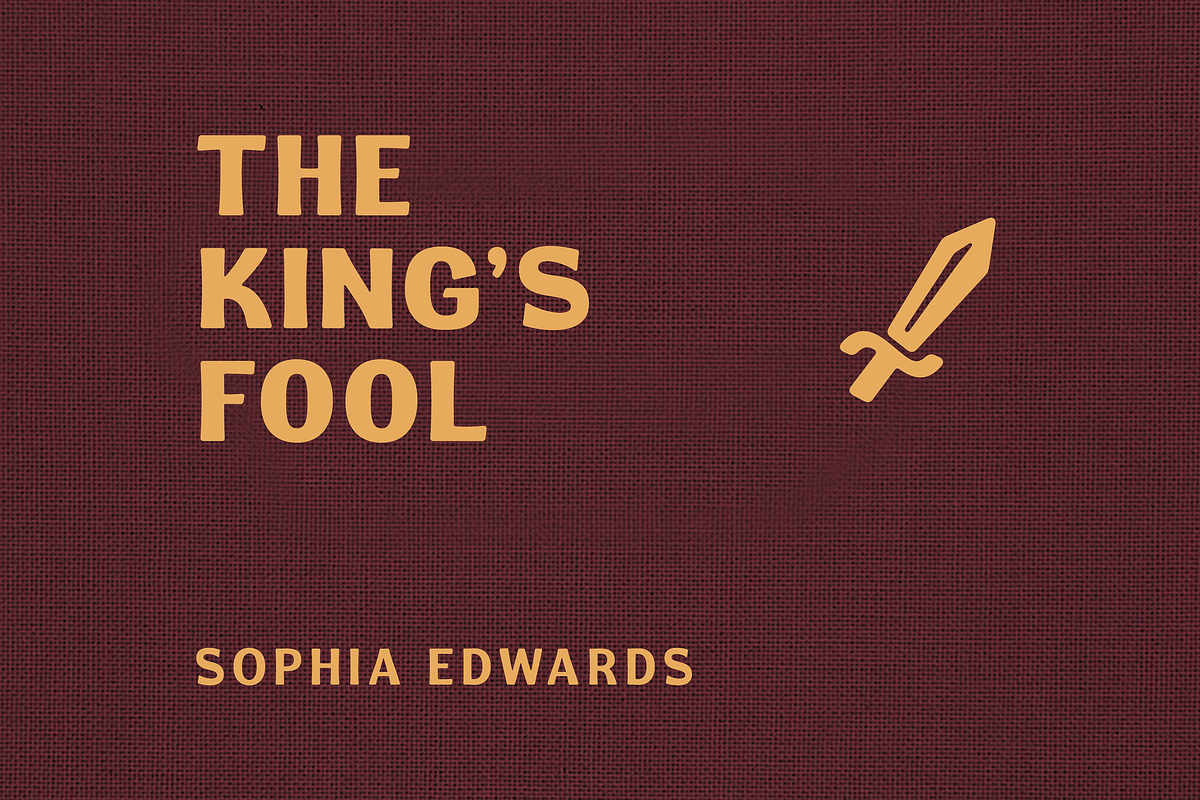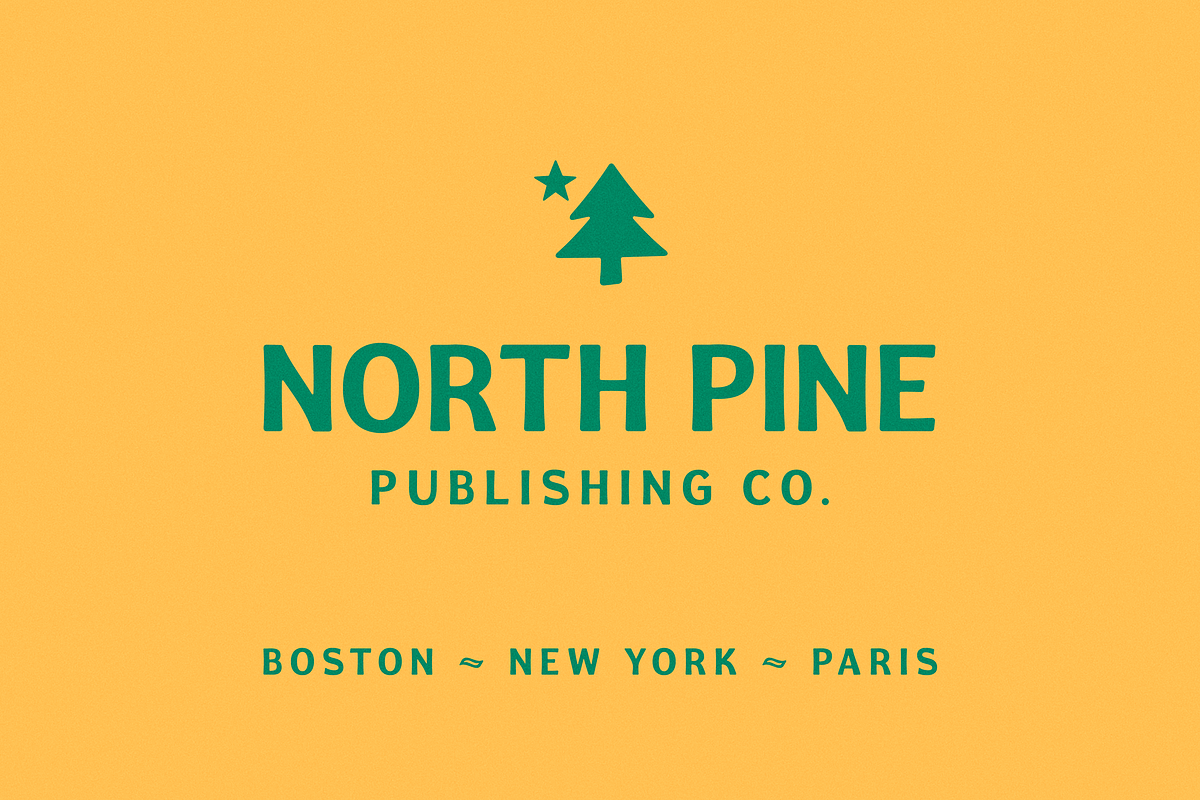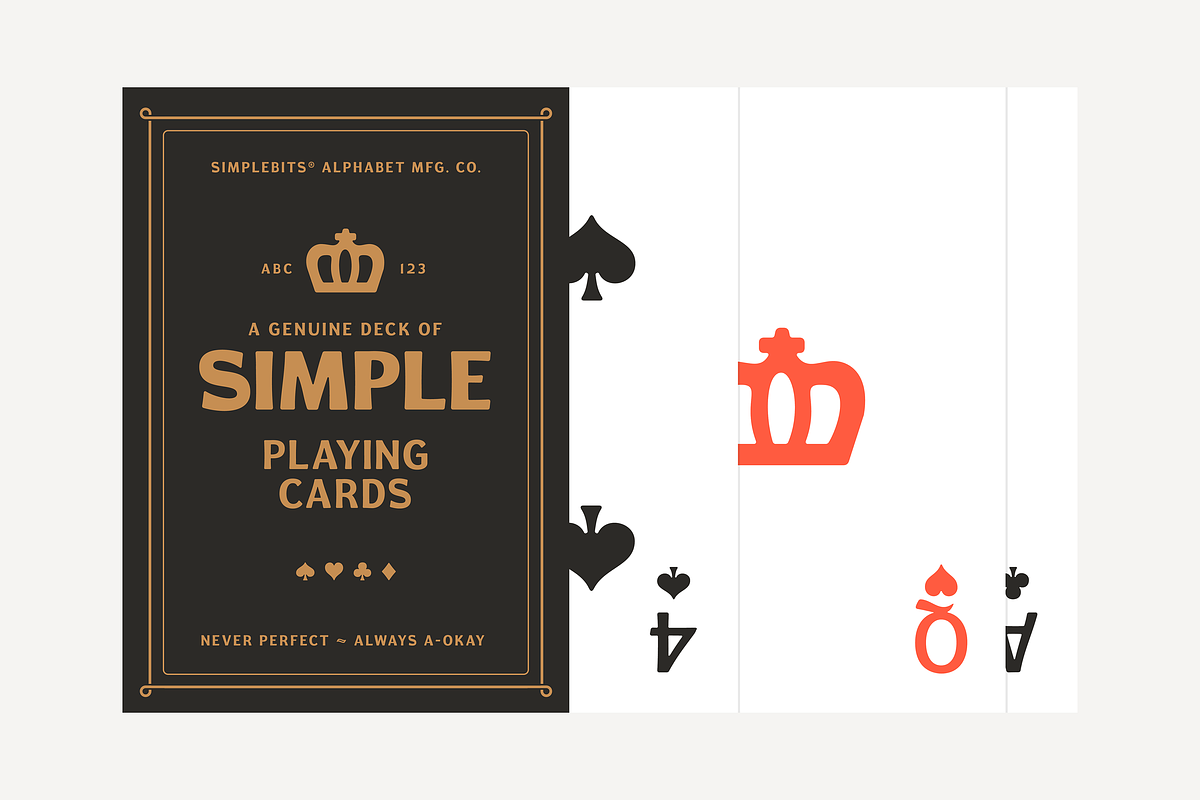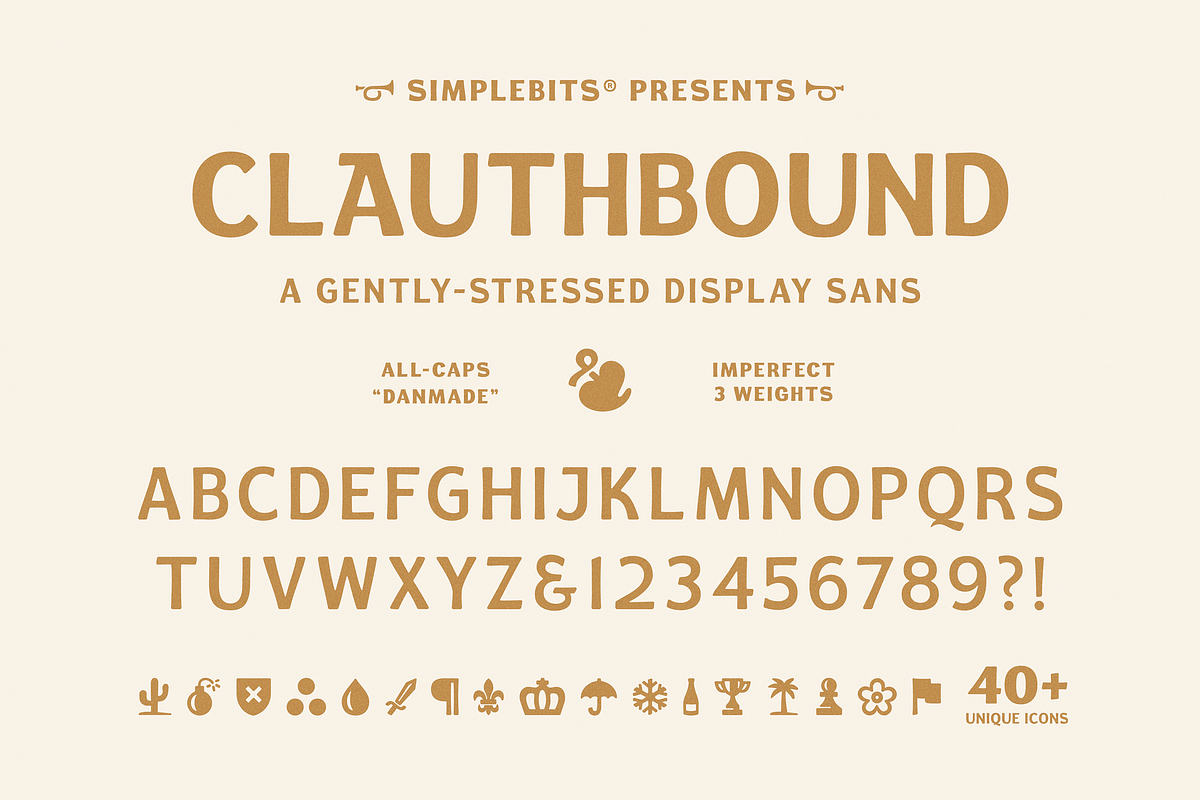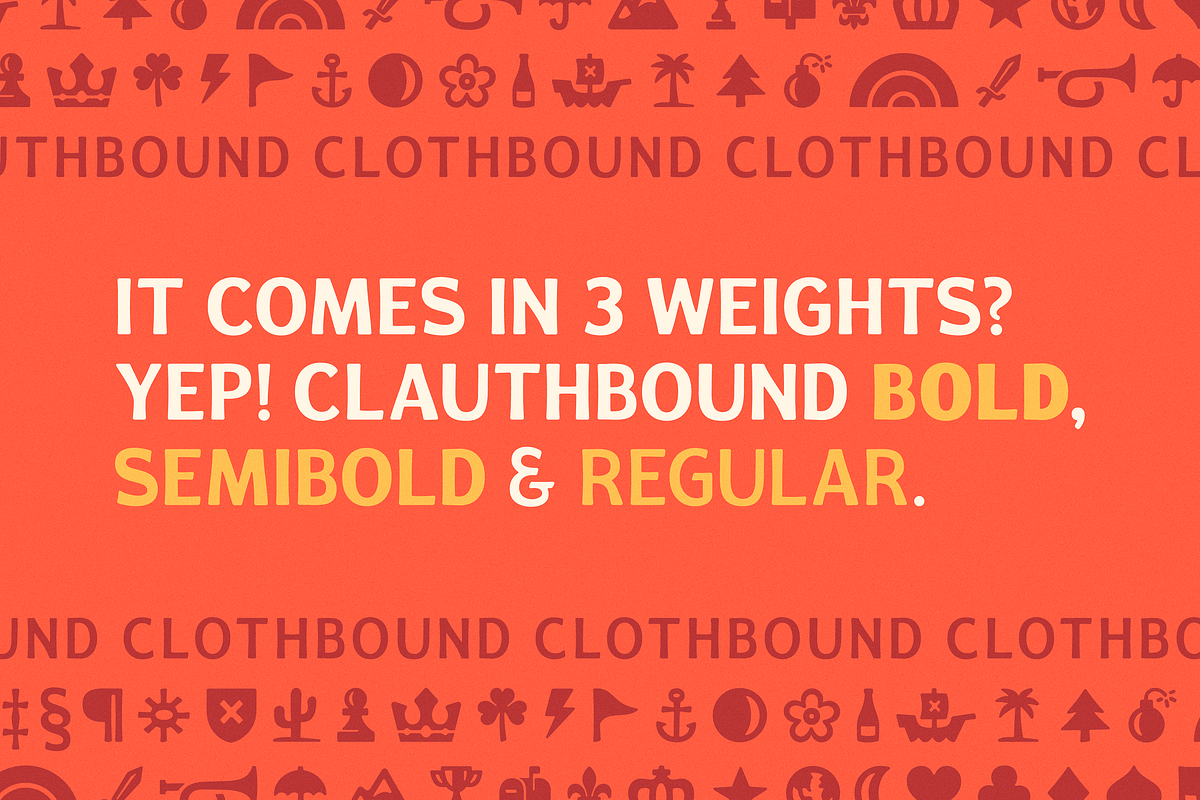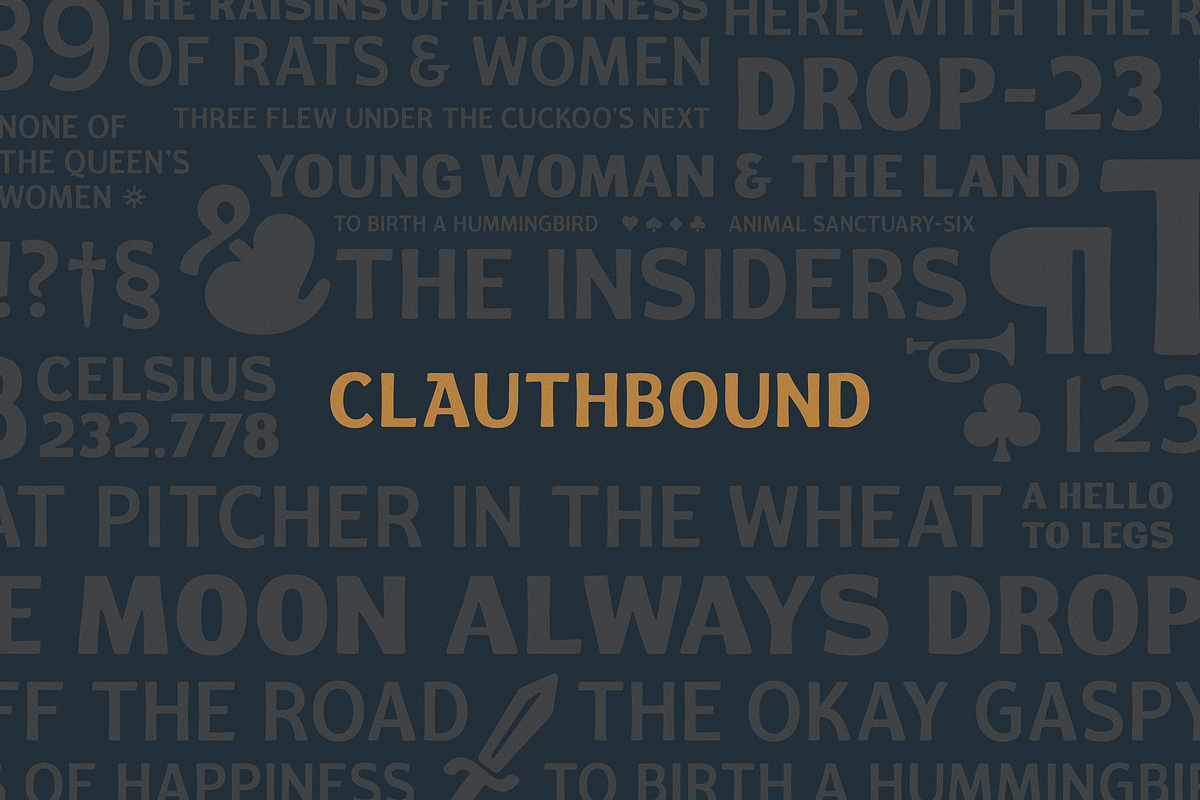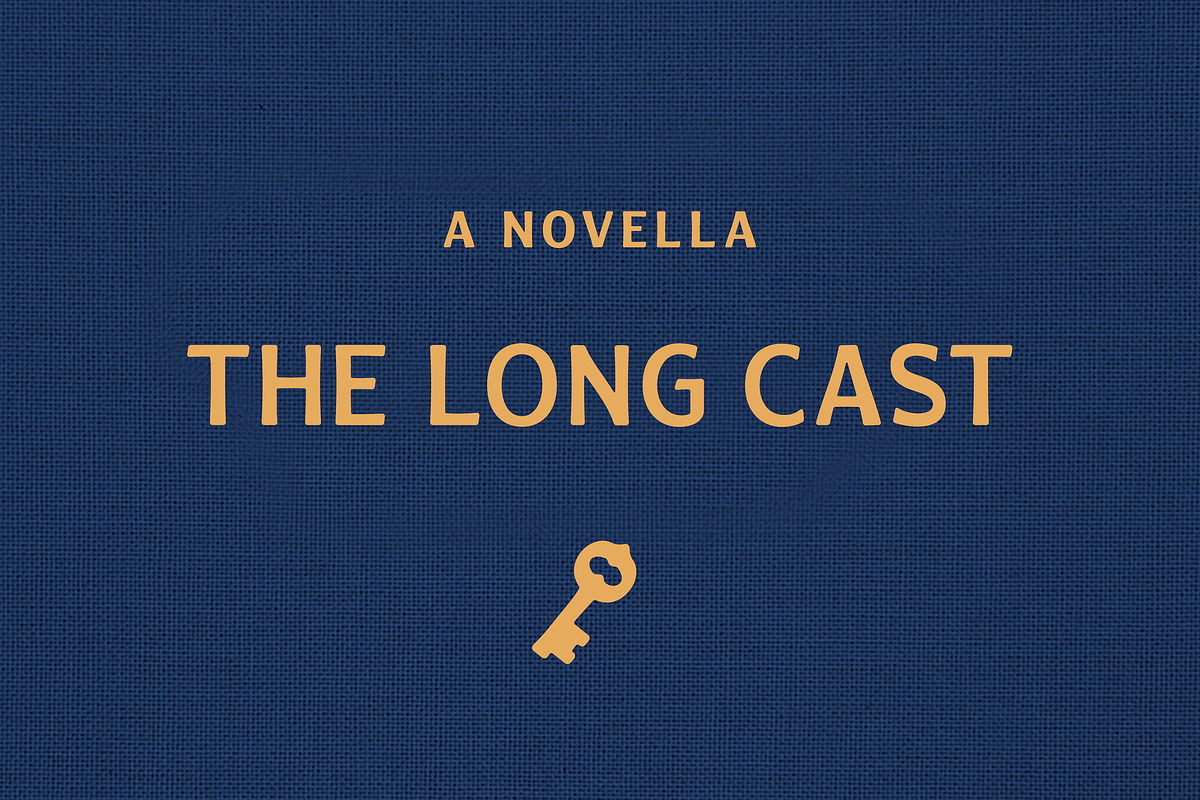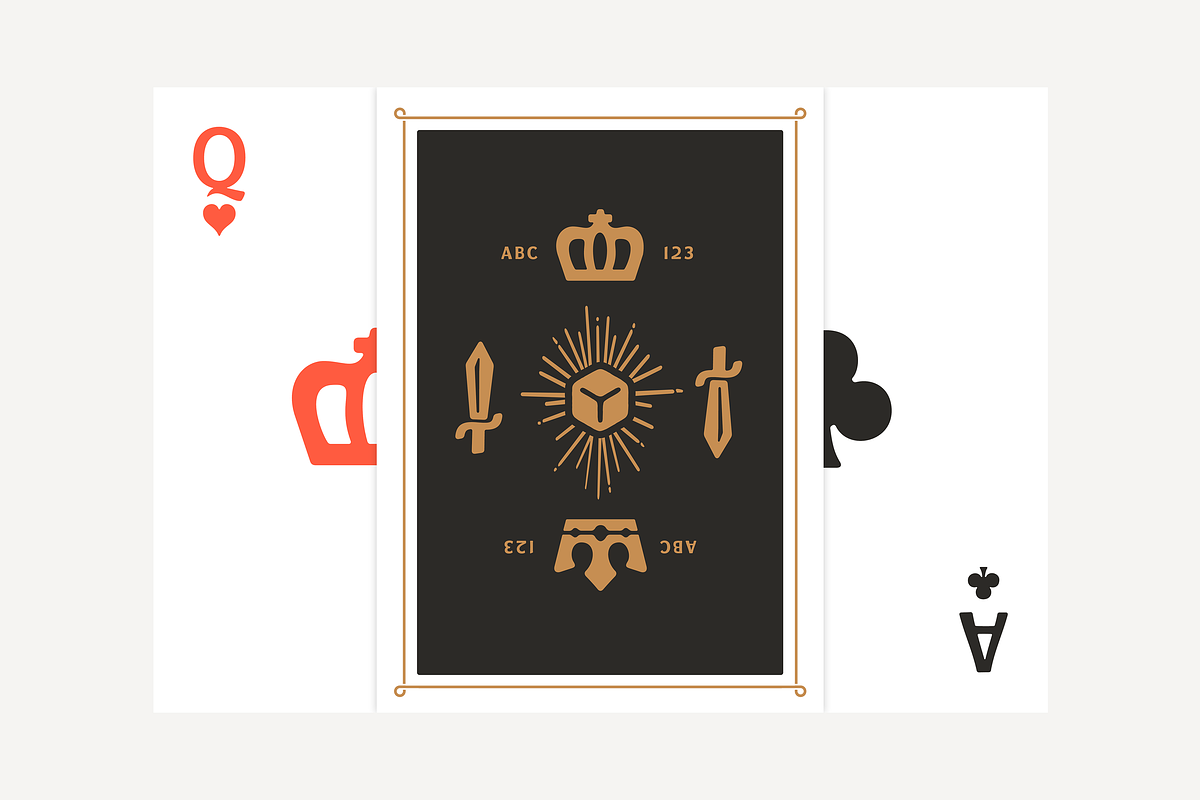
Clauthbound — Gently-stressed sans
Clauthbound is a gently-stressed, display sans inspired by the foil-stamped, cloth book covers from the early-mid 20th century. I was envisioning gold pressed into dusty fabric books, with its slightly rounded corners from decades of printing. It's a friendly typeface that merges classy with character—great for vintage-inspired posters, film titles, invitations, classic novels, etc.
The font also includes over 40 arguably-random icons that would feel at home on those mid-century covers. These are carefully-considered, simple marks that are designed to work perfectly with the letterforms. You can even design an entire deck of playing cards using the fonts alone (and maybe we will! ;-)
Clauthbound comes in three weights: Regular, Semibold, and Bold. Upper and lowercase, numerals, punctuation, diacritics with expanded language support, as well as the icon set, some alternate characters and a few ligatures.